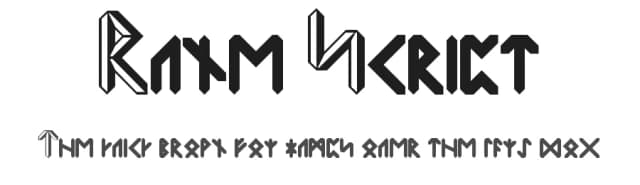
About Rune Script Font
This is the runic alphabet. The numbers only contains 0-9, så if you wanna use for example the number 12, then you have to spell "twelve". That is the correct way to use the numbers.